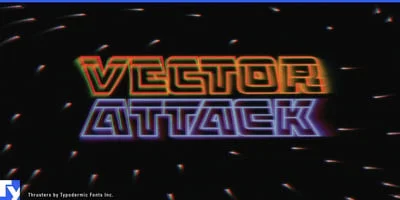
Thrusters Font
Thrusters Font is ideal for aerospace industry branding, rocket launch campaigns, space exploration materials, jet engine manufacturers, aviation technology companies, sci-fi movie titles, propulsion system documentation, and high-speed transportation design projects.
What makes Thrusters Font exciting is its explosive propulsion energy that captures the raw power and technological precision of rocket engines through dynamic, forward-thrusting letterforms. This powerful typeface features angular geometric construction with aerodynamic details that evoke the intense force of jet propulsion and space travel, making it perfect for projects requiring authentic aerospace credibility and the representation of breakthrough velocity in their communications.
The Thrusters Font family includes regular and bold weights, plus aerodynamic variations and propulsion-inspired decorative elements that enhance the aerospace aesthetic with rocket-powered styling options and high-velocity typography elements for space industry applications.
This explosive typeface delivers exceptional aerospace authenticity and propulsion appeal, making Thrusters Font an essential resource for aviation and space technology projects. The font's dynamic character makes it perfect for organizations wanting to communicate cutting-edge propulsion technology and space exploration leadership in their brand identity. NASA contractors and aerospace manufacturers particularly value its ability to convey rocket-powered innovation and space mission credibility instantly to engineering audiences. The aerodynamically designed letterforms ensure optimal readability while preserving the thrilling appeal of space propulsion across all applications from mission control displays to aerospace conference materials. Whether you're creating materials for Mars exploration missions or developing branding for commercial space companies, this font provides the perfect combination of technological authenticity and cosmic excitement. Creative professionals consistently choose this typeface for projects requiring that ideal balance of aerospace engineering credibility and space exploration inspiration, making it invaluable for communications that celebrate both rocket science precision and the adventurous spirit of space travel.